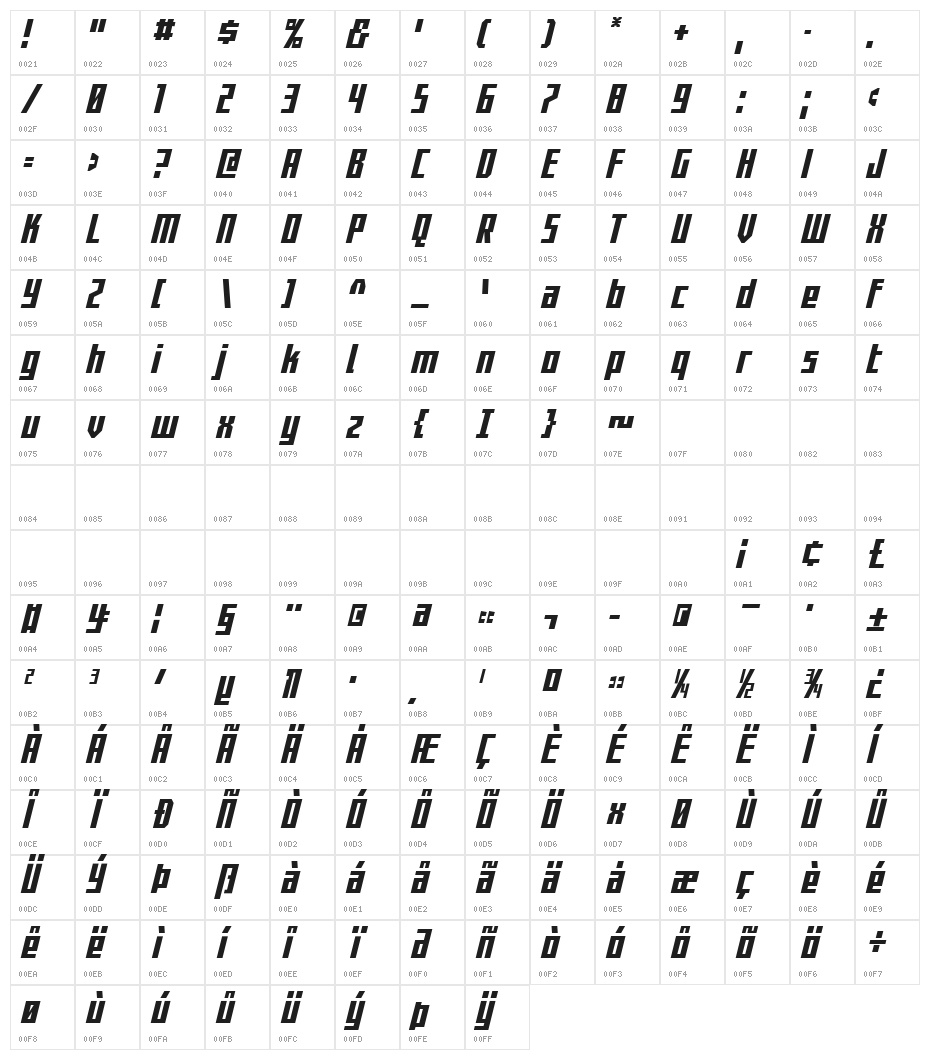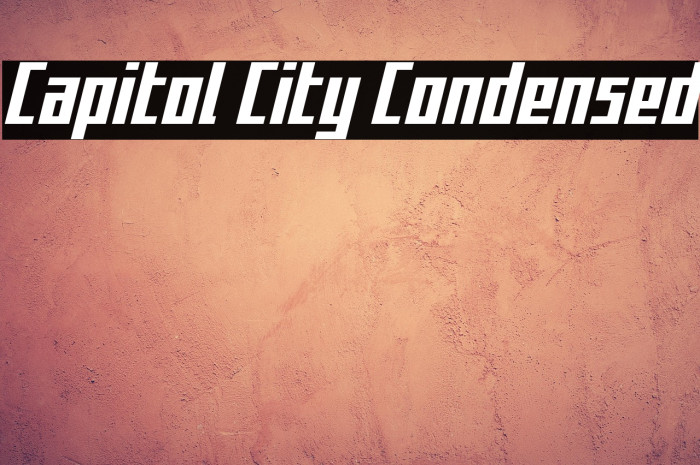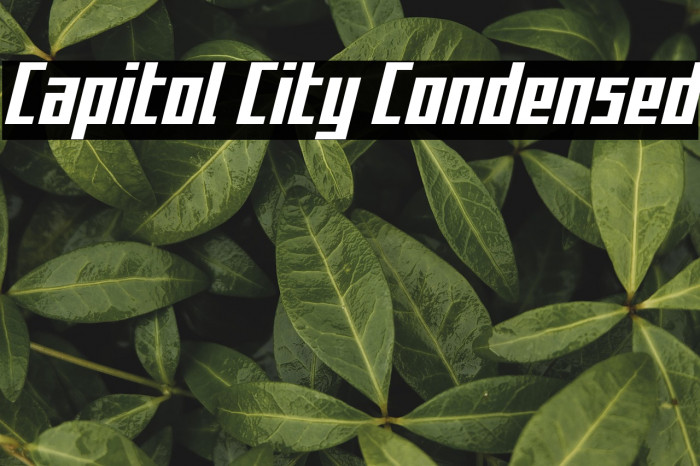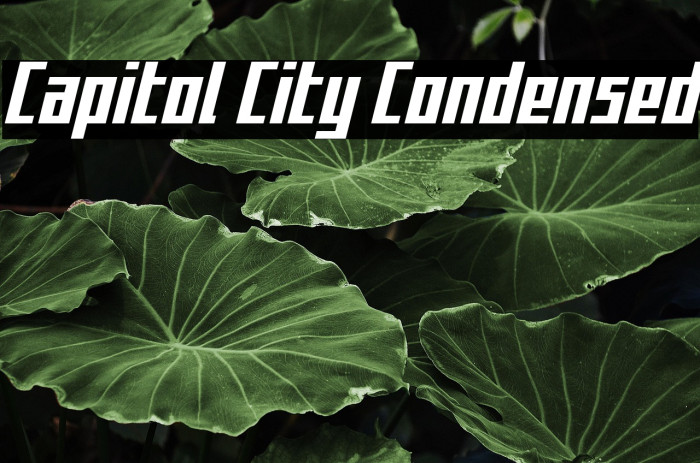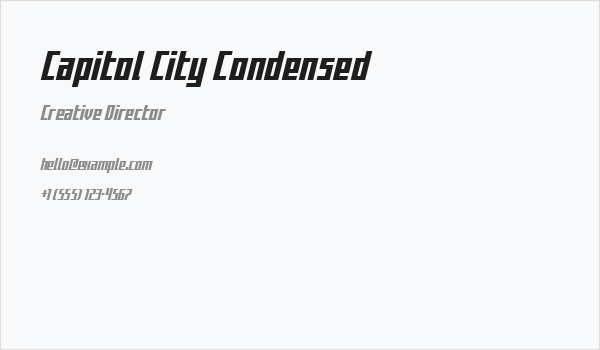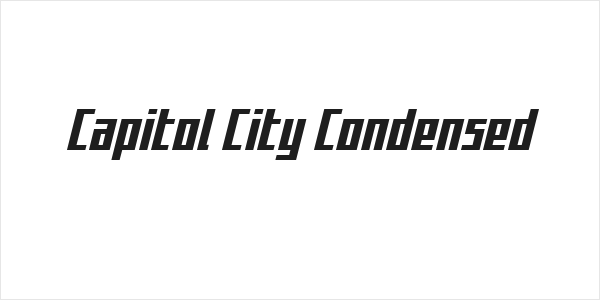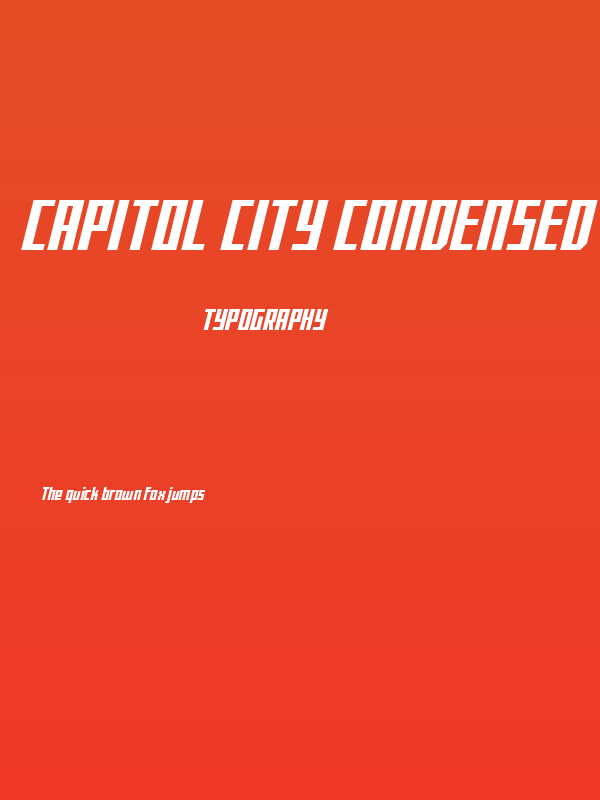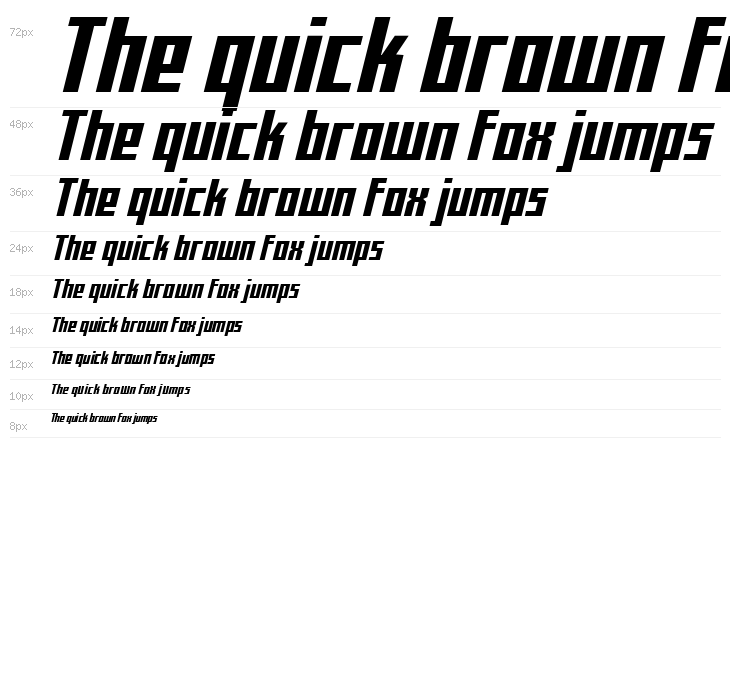
Capitol City Condensed Font
Capitol City Condensed Description
This font features a bold, condensed style with sharp, angular lines that give it a dynamic and modern appearance. The characters are tightly spaced, enhancing the compact look. The uppercase and lowercase letters maintain a consistent geometric structure, while the numerals and special characters follow the same angular design. The overall style is assertive and impactful, making it suitable for attention-grabbing designs.
| Proposed Projects | Ideal for posters, headlines, branding, and any project requiring a bold, modern aesthetic. |